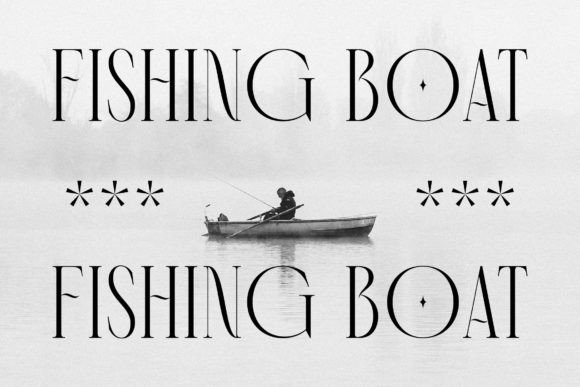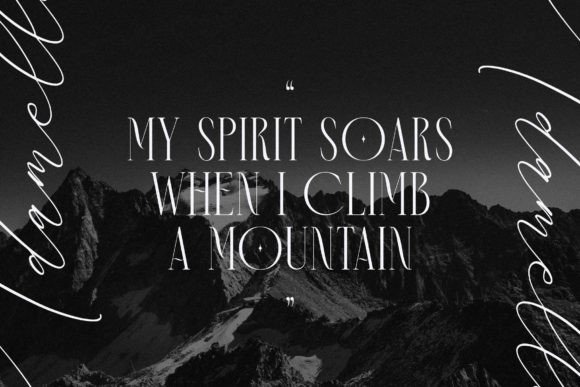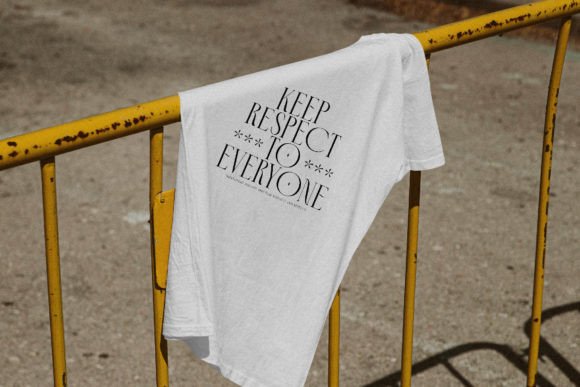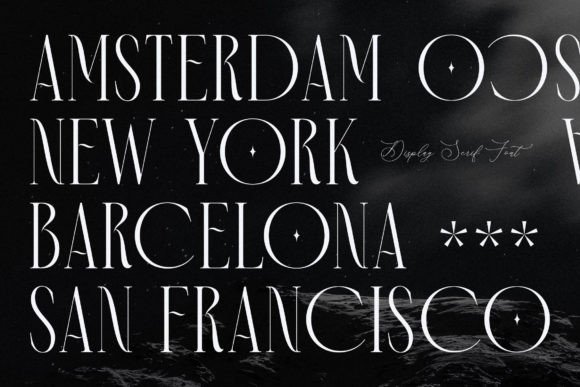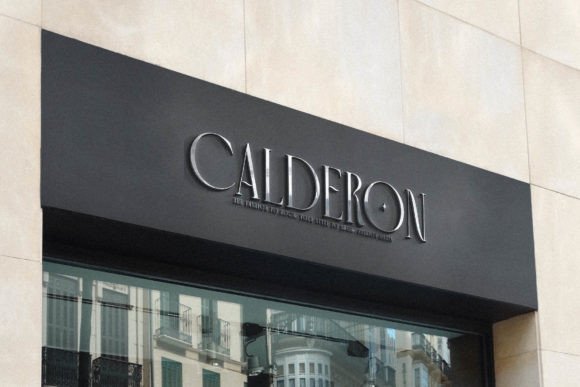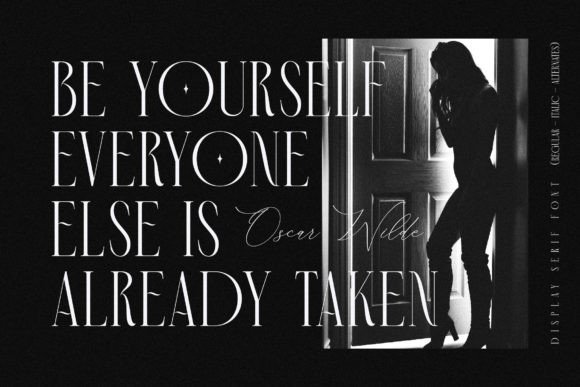
Introduction to Meorgine Font
As a designer, you know that the perfect font can make all the difference in a creative project. The moment of truth arrives when you’re staring at a blank canvas, and the words start flowing. It’s that instant when the right font can elevate your idea from ordinary to extraordinary. For those seeking a timeless yet modern touch, the Meorgine Font has emerged as a game-changer.
With its unique blend of classic and modern elements, this serif typeface is poised to become your go-to design resource. Whether you’re crafting an elegant logo, designing a book cover, or creating a fashion brand identity, the Meorgine Font is sure to impress. And the best part? It’s available for free download, allowing you to experiment with high-quality designs without any limitations.
Discover why the Meorgine Font is fast becoming a favorite among designers and learn how to unlock its full potential for your next creative project.
Key Features of Meorgine Font
- High-quality design resource with a unique, creative style, perfect for various projects.
- Meorgine Font features a transparent background, making it ideal for use on any background color or image.
- With its high-resolution design, Meorgine Font is suitable for both print and digital applications.
- Meorgine Font is a versatile design resource, suitable for use in various creative projects, including branding, logos, and typography-based designs.
- Its unique style and high-quality design make Meorgine Font an excellent addition to any designer’s collection of free design resources.
Honest Review: Meorgine Font
I recently had the chance to work with the Meorgine Font, and I must say it’s been a game-changer for my creative projects. This high-quality font is a fantastic addition to any design resource.
- ✨ High-quality design: The Meorgine Font is incredibly detailed and visually appealing, making it perfect for any project that requires a touch of sophistication.
- ✨ Versatile: The font is available in a range of weights and styles, making it easy to find the perfect fit for your design needs.
However, I did encounter a few limitations when working with the font.
- ⚠️ Limited language support: The Meorgine Font only supports a limited range of languages, which may be a concern for designers working on multilingual projects.
Overall, I’m really impressed with the Meorgine Font. While it may have a few limitations, its high quality and versatility make it a valuable addition to any design resource. If you’re looking for a high-quality font for your next creative project, I highly recommend giving it a try.
Meorgine Font is ideal for a variety of design projects, including logos, branding materials, and social media graphics. Its unique design and high-quality features make it a valuable addition to any design resource.